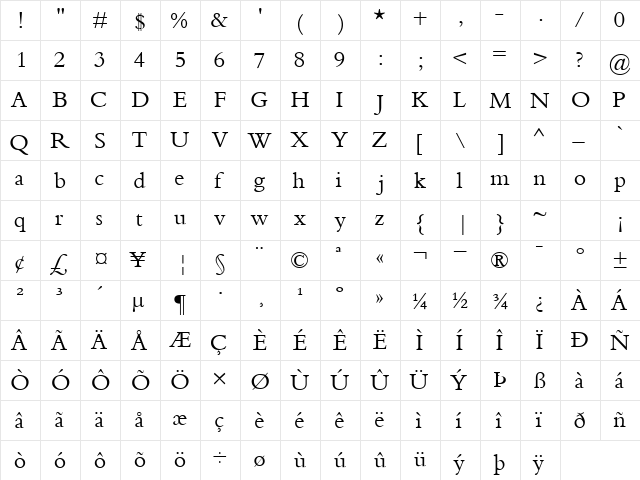
KuriakosSSK Regular
Design Context for KuriakosSSK Typeface
KuriakosSSK offers clean, dependable letterforms without strong stylistic allegiance, making it a practical choice for designers who need flexibility.